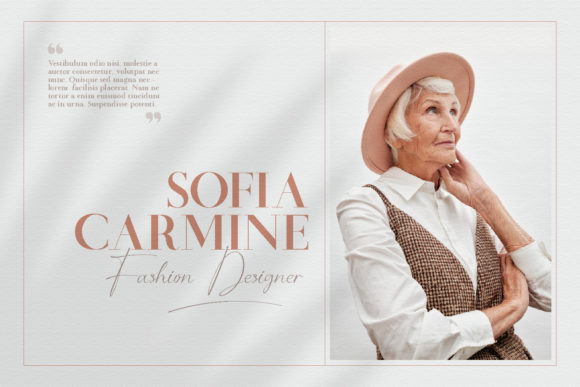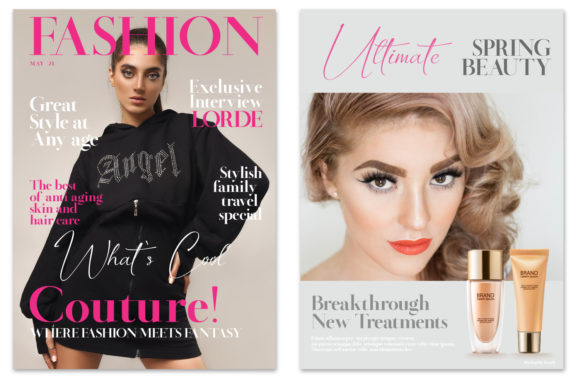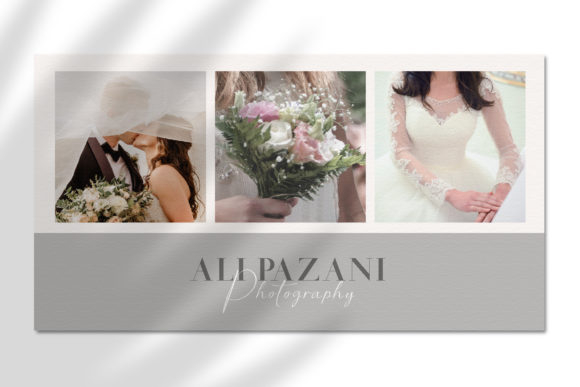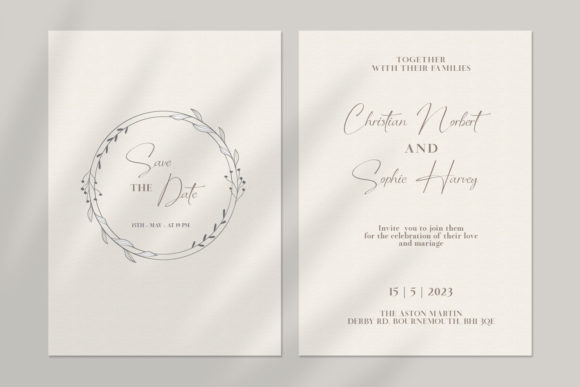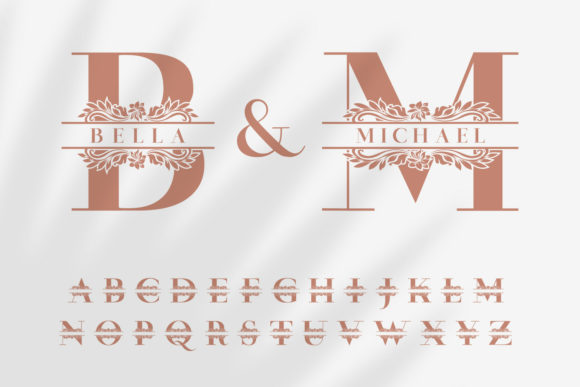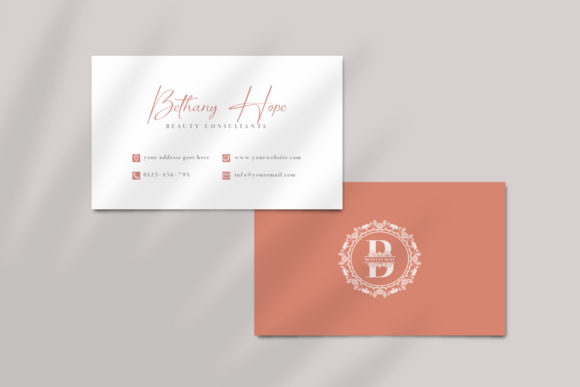
The Ultimate Design Game-Changer: Cantique Font
I’ll never forget the moment I stumbled upon the Cantique font. I was working on a project for a client who wanted a sophisticated yet elegant look, and I was struggling to find the perfect font to bring their vision to life. That’s when I discovered Cantique – a spectacular duo font that combines a serif and script font in one package. It was love at first sight! 💕
- ✨ Incredibly versatile: Cantique fits a wide pool of designs, from elegant wedding invitations to modern business branding.
- ✅ High-quality craftsmanship: The font is well-designed, with beautiful lines and curves that make it a joy to work with.
- 💥 Unique combination: The serif and script duo font offers endless possibilities for creative expression.
A Few Quirks to Consider
While Cantique is an amazing font, there are a few things to keep in mind:
- 🤔 Some users may find the script font a bit tricky to read at smaller sizes – but this is easily remedied by using the font at larger sizes or adjusting the tracking.
- Experiment with OpenType features like stylistic alternates and glyphs to add visual interest to your design.
The Story Behind Cantique
Cantique was designed with the intention of creating a versatile, high-quality font that would meet the needs of creative professionals. The designer’s goal was to craft a font that would be both elegant and modern, with a unique combination of serif and script styles. The result is a font that has become a favorite among designers and crafters alike.
| Font Name | Cantique Font |
| Author | xdCreative |
| What makes Cantique font so special? | Cantique’s unique combination of serif and script styles, along with its high-quality craftsmanship, make it a standout font for creative projects. |
| Is Cantique suitable for digital media? | Absolutely! Cantique is designed to work well in both print and digital media, making it a great choice for a wide range of projects. |
| Can I use Cantique with other fonts? | Cantique pairs well with many other fonts, but it’s best to choose fonts that complement its style and aesthetic. Experiment with different combinations to find the perfect pairing for your project. |